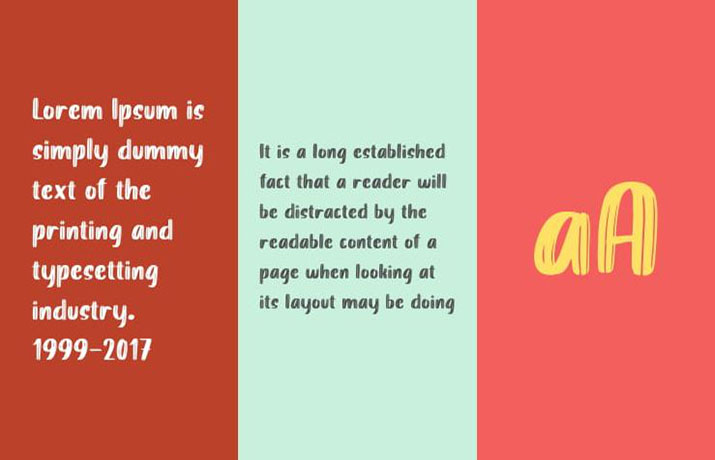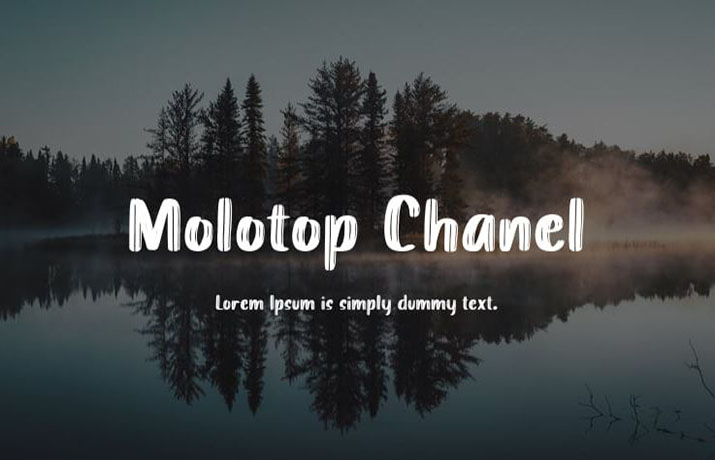
Molotop Chanel Font is a bold display typeface that comes with dry brush letterforms. It was designed and published by Indonesian graphic designer Alit Suarnegara.
When you notice its texture then feels that the designer has created all the letters with a thick rough brush. So, this makes its appearance unique and handmade which is applicable for display use.
Its dry brush strokes make it an ideal choice for various purposes such as social media posters, banners, flyers, headers, titles, branding, music themes, YouTube thumbnails, logos, and more.
Style:Brush, Bold, Display
Font Designer:Alit Suarnegara
• It can be used for your logo design, amazing t-shirt, product packaging, branding projects, typographic design, labels, apparel design, movie screen, album cover, shows, stationery, etc. because of its handmade design and amazing appearance.
What is Molotop Chanel Font?
Molotop Chanel Font is a bold display typeface that comes with dry brush letterforms. It was designed and published by Indonesian graphic designer Alit Suarnegara.
Why is Molotop Chanel a good font?
Molotop Chanel is a good font for designs that need a fun, bold, and slightly quirky look. It’s a thick, cartoonish script font that works well for children’s themes or casual projects.